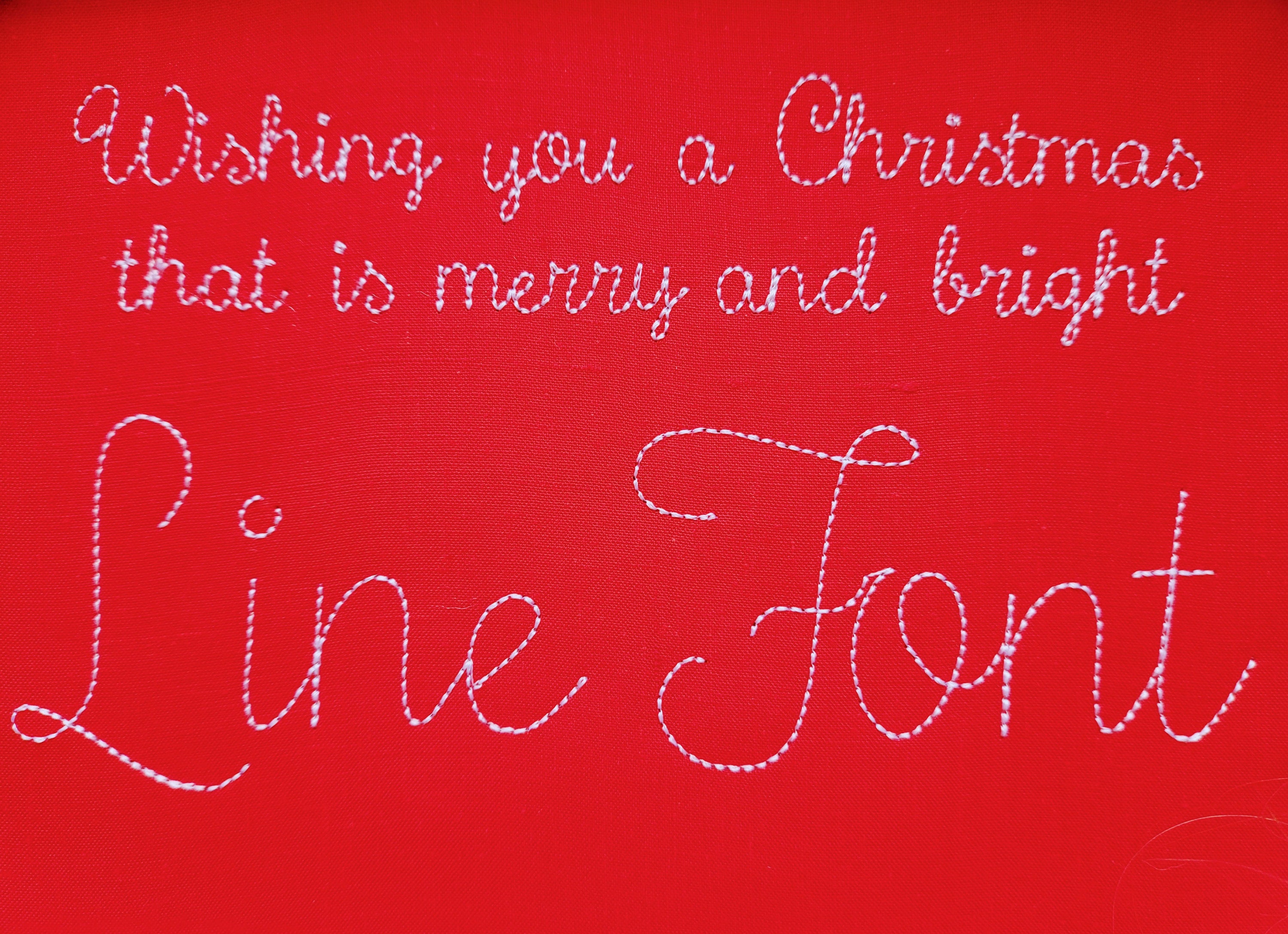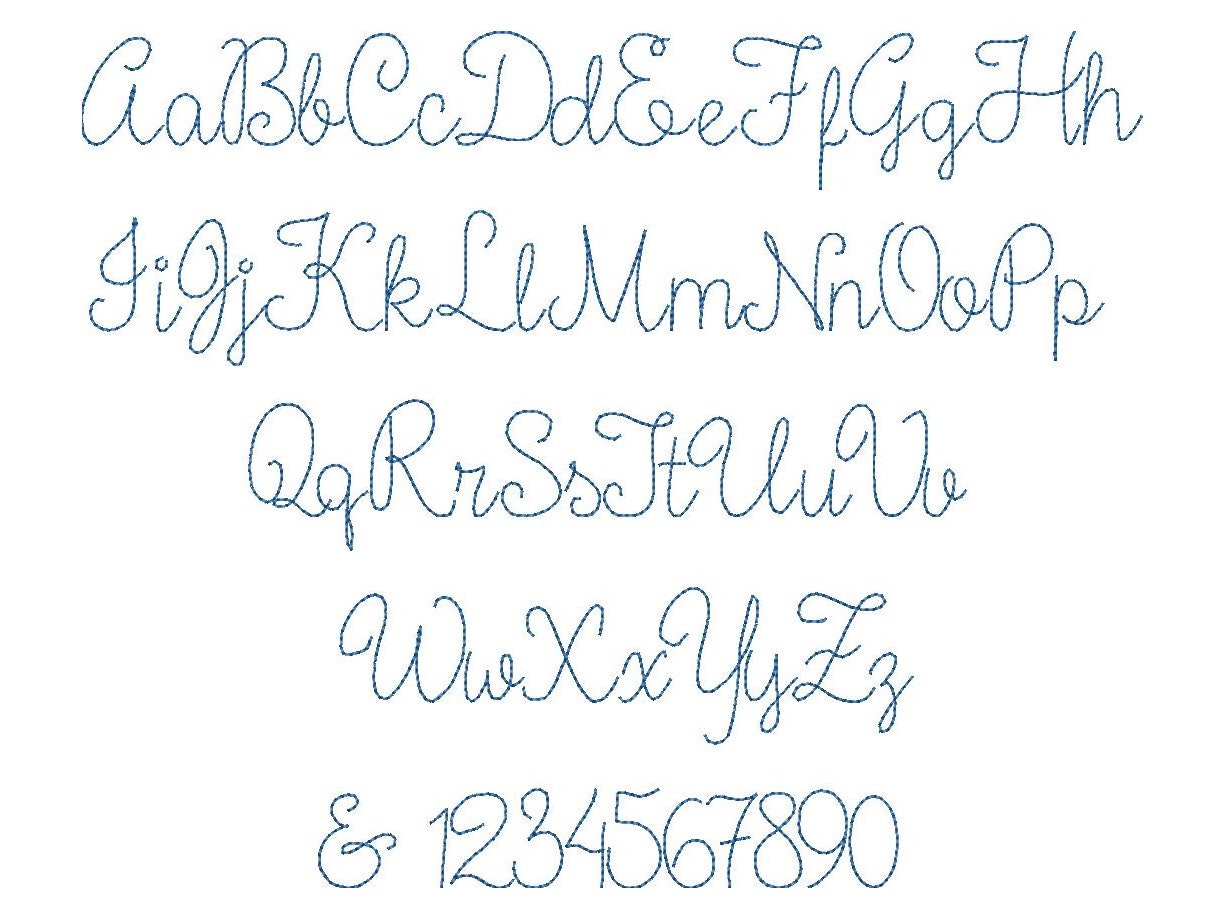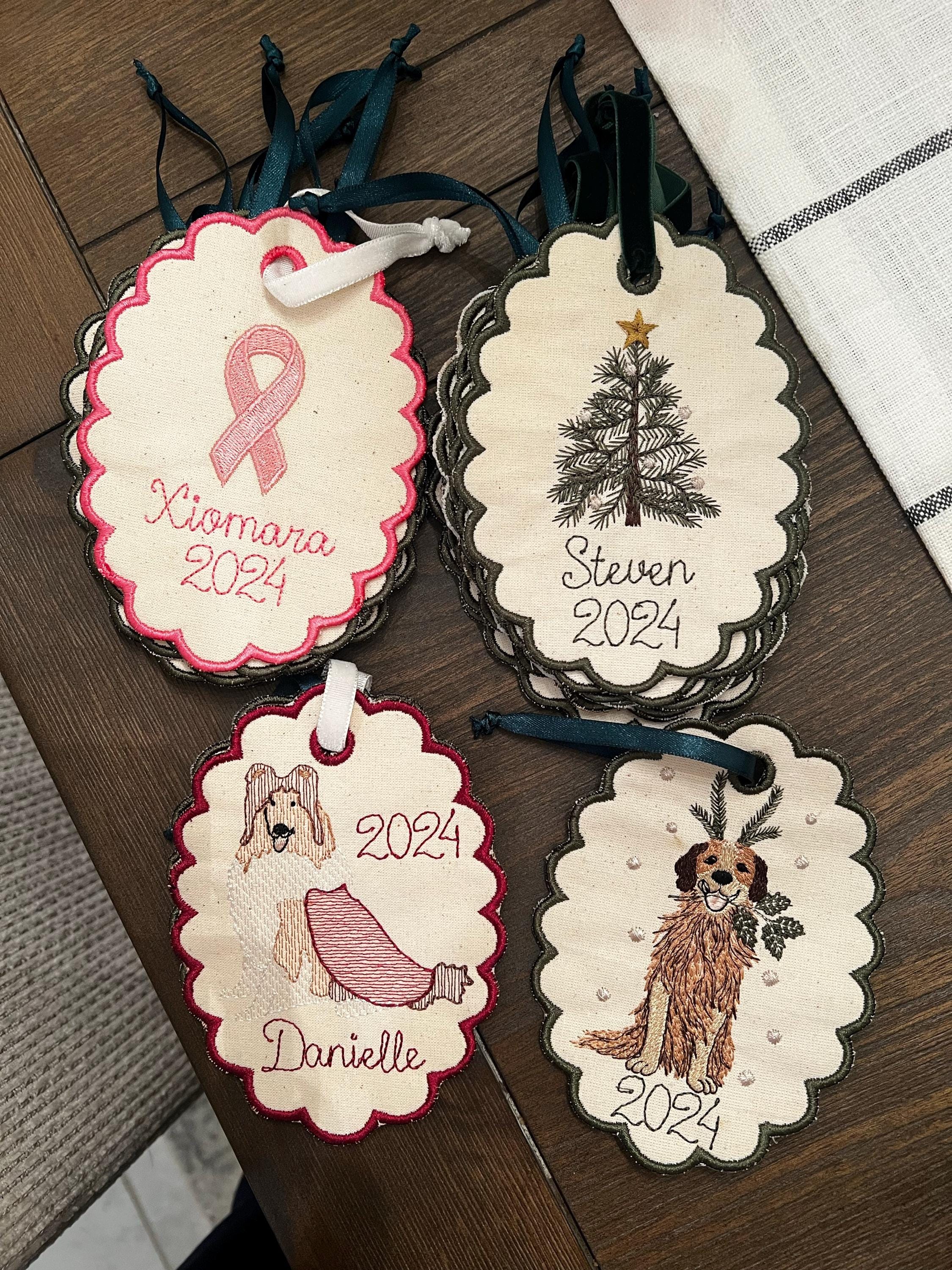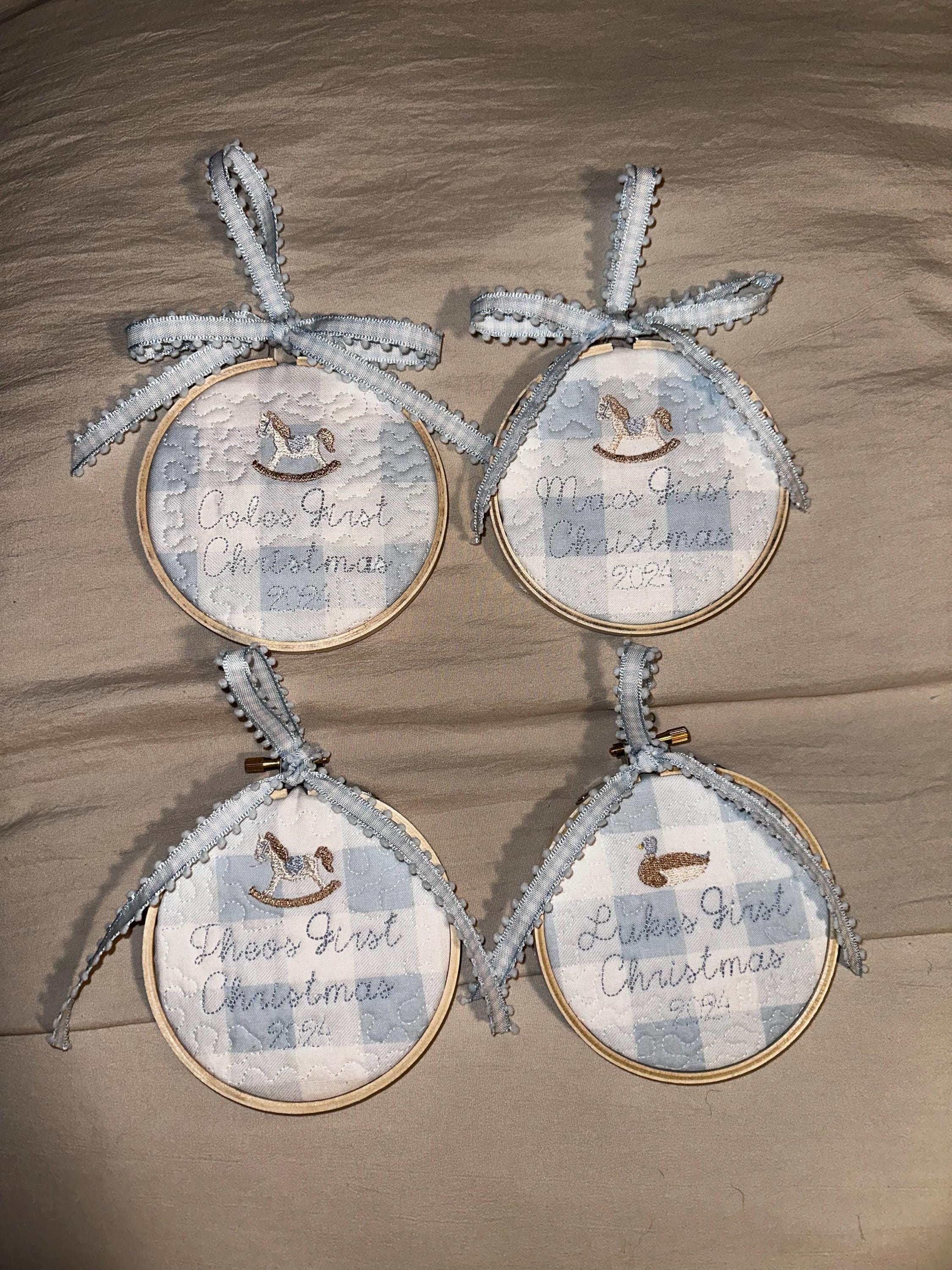
Handwriting Font, mini micro alphabet letters, line outline stitch, machine embroidery designs assorted sizes, uppercase lowercase BX included
Whole alphabet A-Z, uppercase letters, lowercase letters and ampersand &